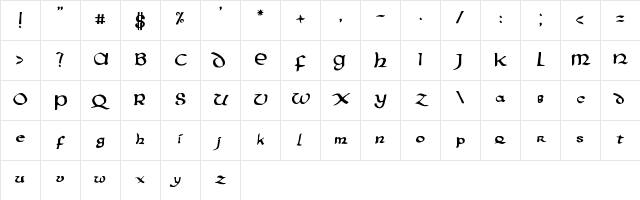
PentaGrams Aurra Regular
Design Context for PentaGrams Aurra
PentaGrams Aurra is a composed and adaptable typeface that performs quietly and consistently across a wide range of design contexts.